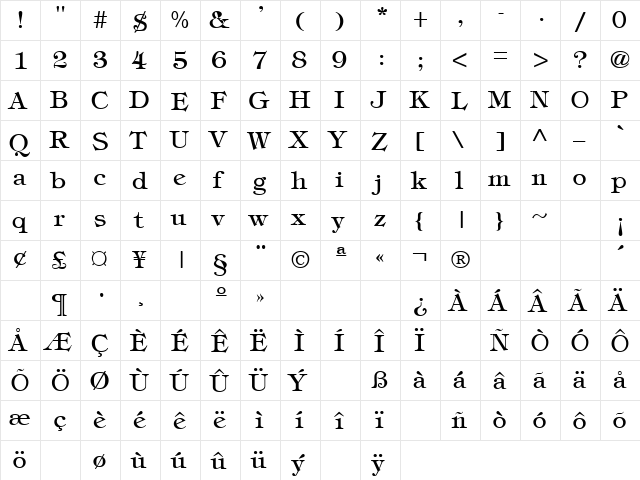
Tiffey Normal
Design Context for Tiffey Typeface
Tiffey offers clean, dependable letterforms without strong stylistic allegiance, making it a practical choice for designers who need flexibility.